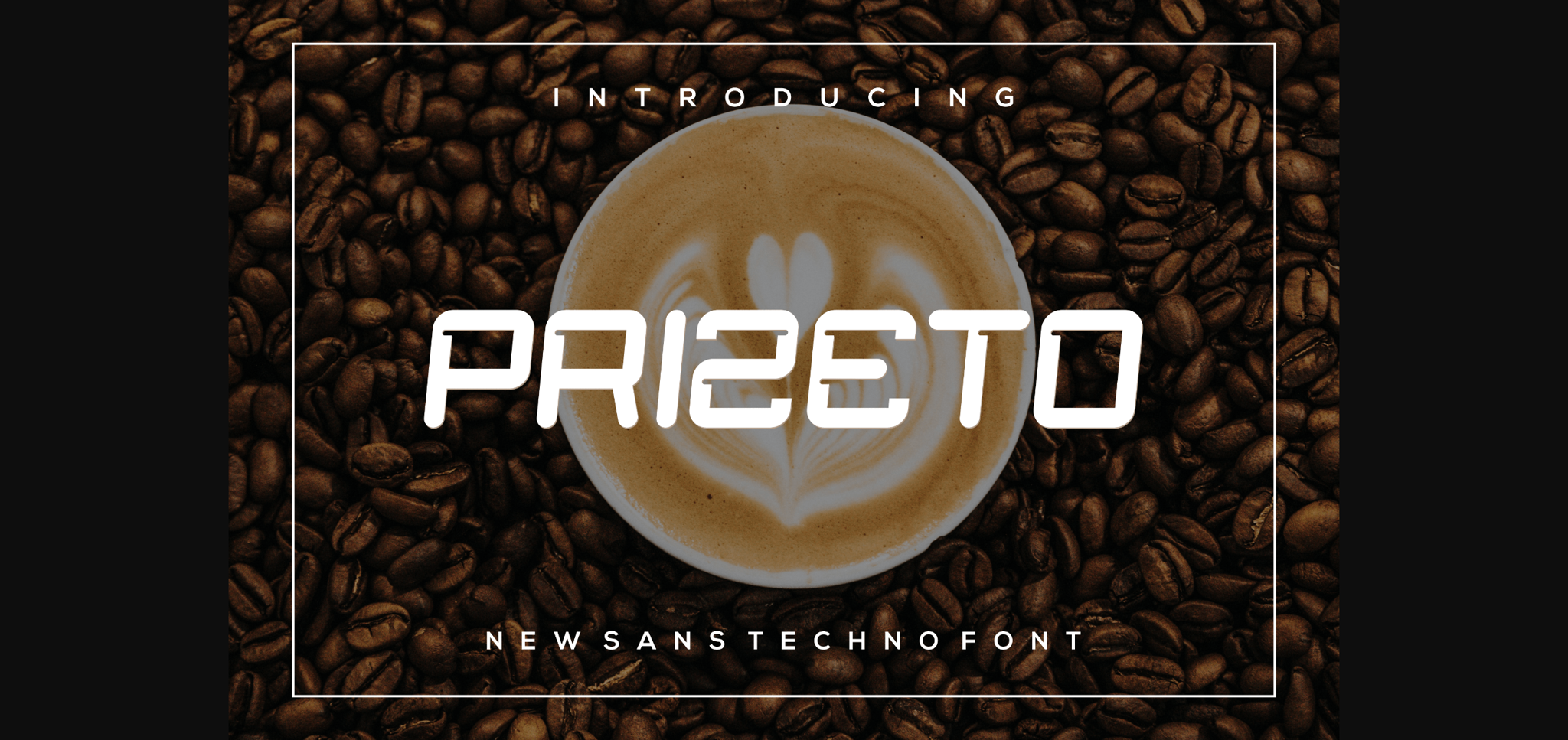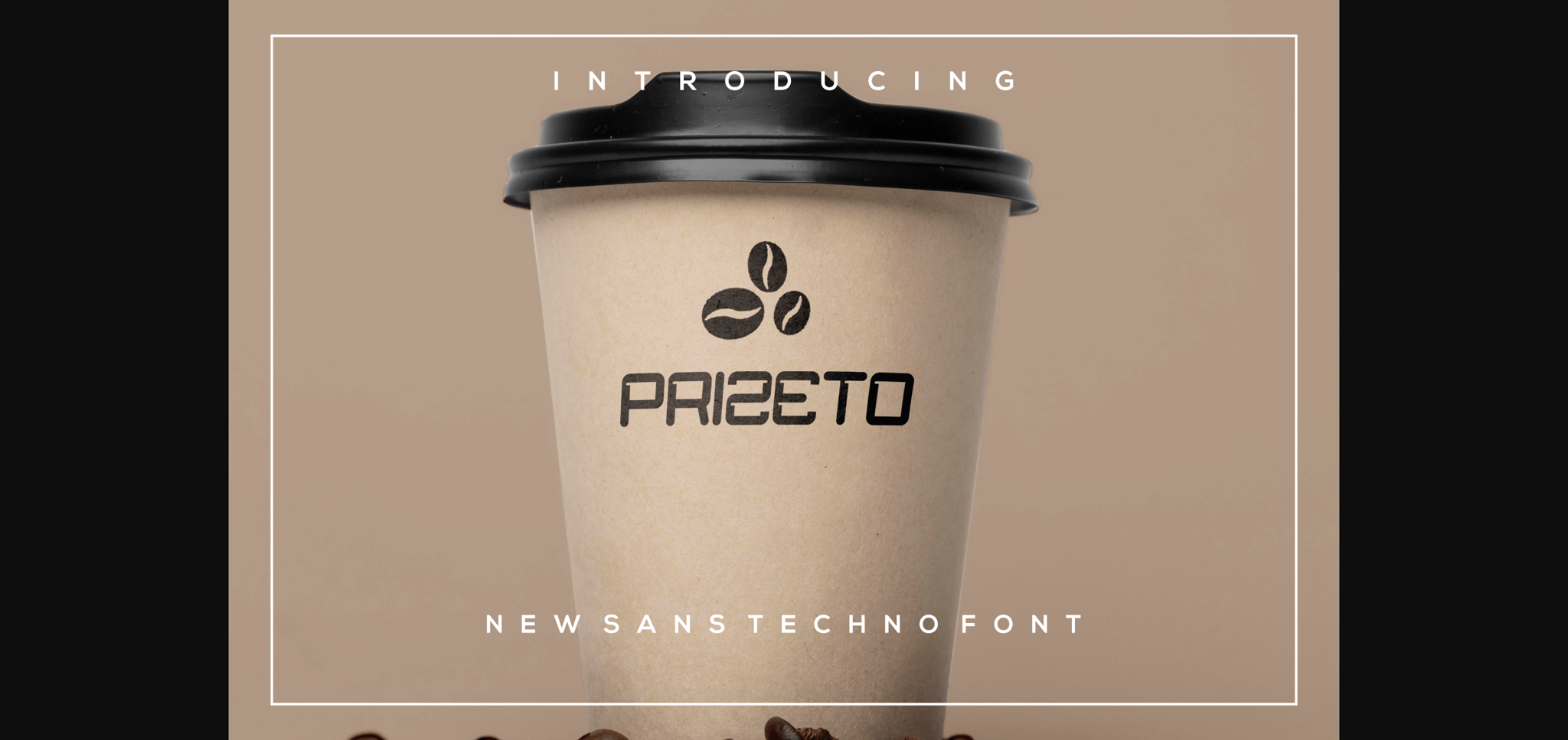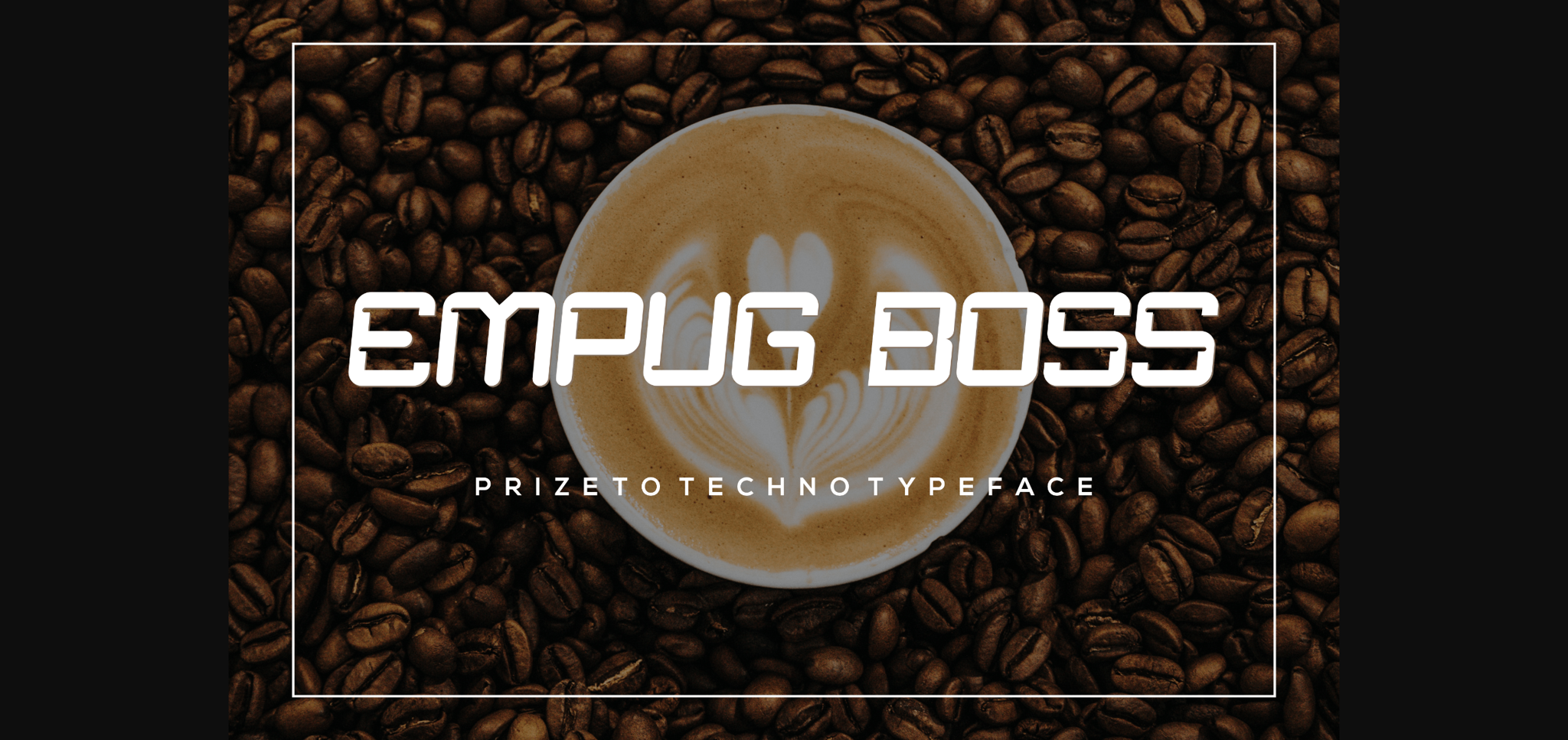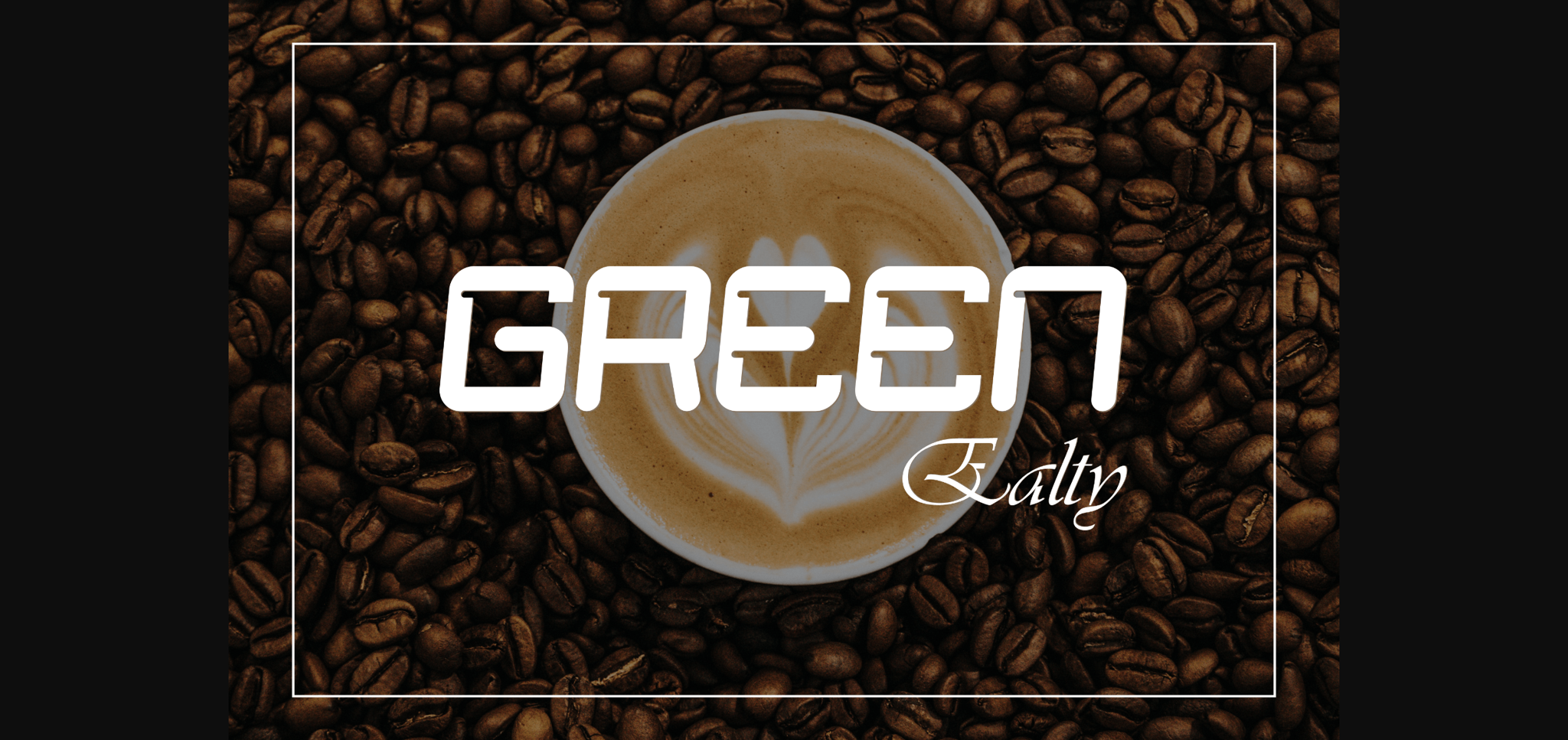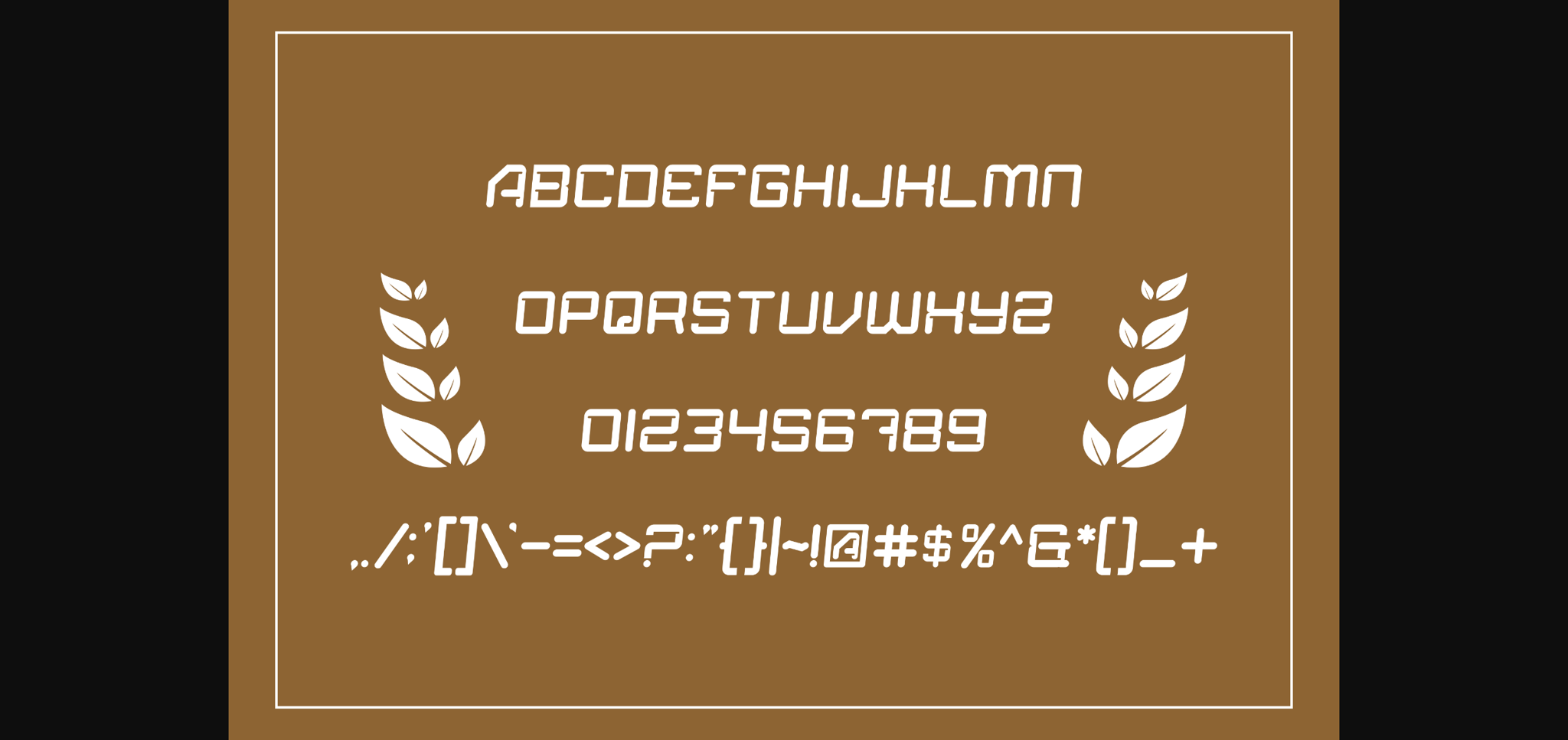
Prizeto Font
About Prizeto Font
Prizeto is a bold sans serif font suitable for covers, banners, or anything that needs to stand out. Its characters are unique and perfect for a fresh look!